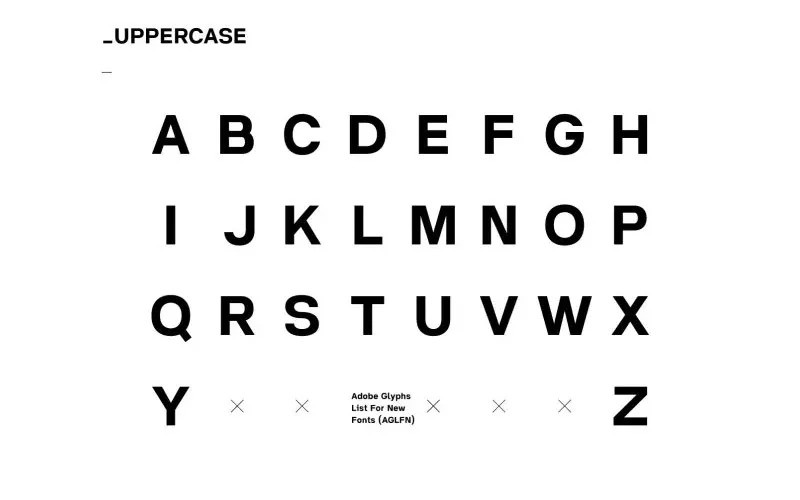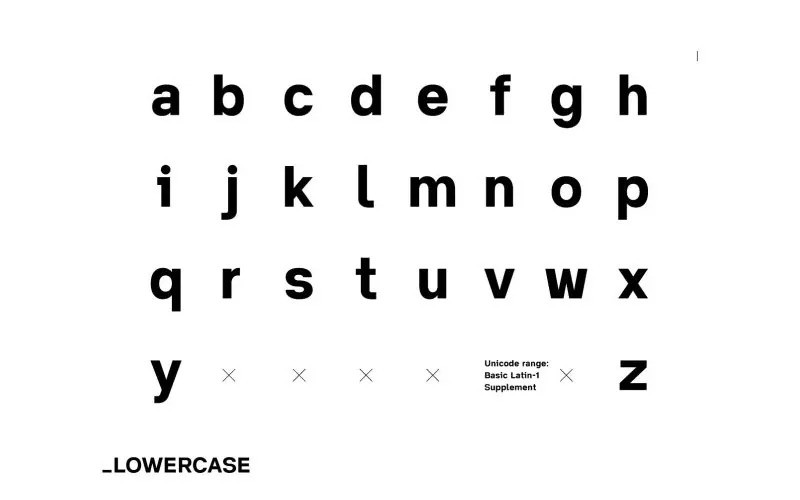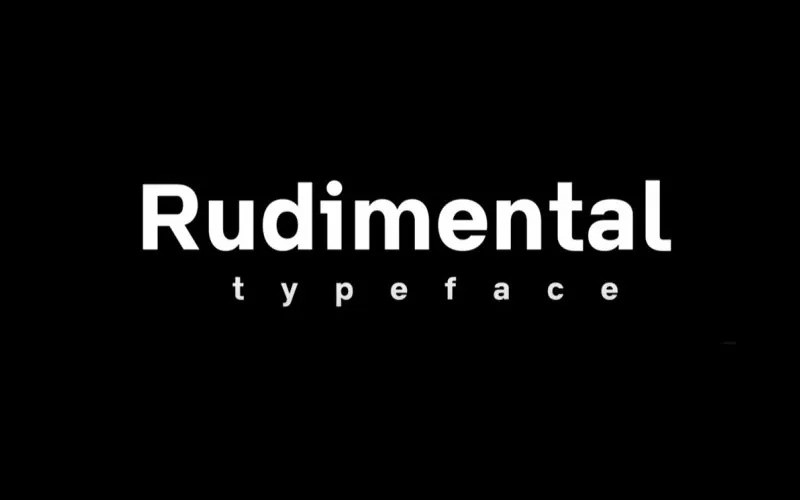
Rudimental Sans Serif Font
Rudimental Font is a free sans-serif typeface manufactured by Retr0. While neutral and clear at first glance, it can be characterized as both pleasant and confident due to its open, rounded forms and vertical terminals.
It can be used in both a restrained and expressive way. Suitable to create any branding, product packaging, invitation, quotes, t-shirt, label, poster, logo etc.